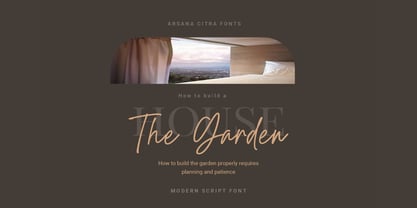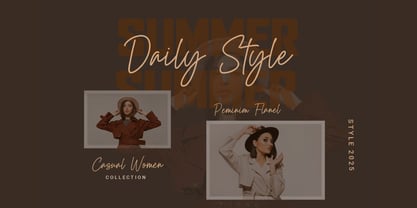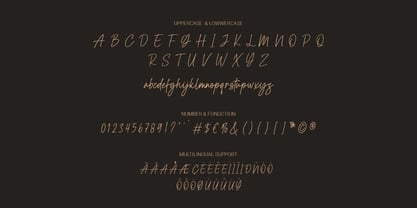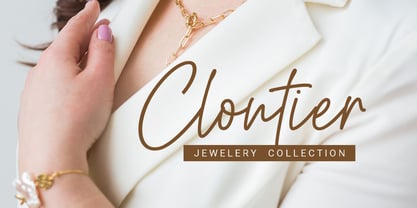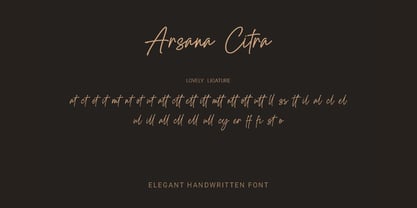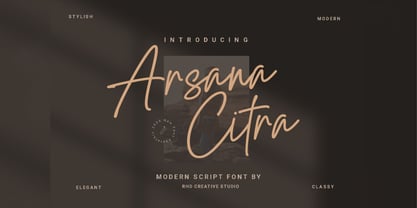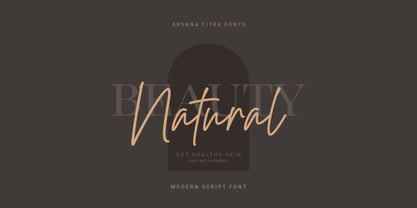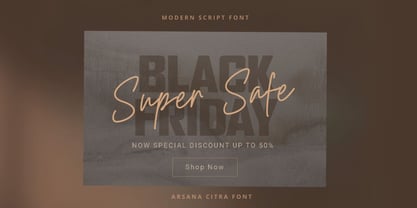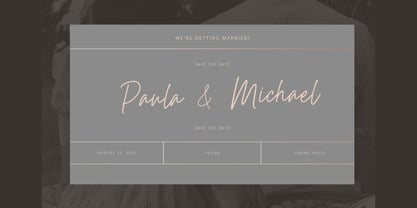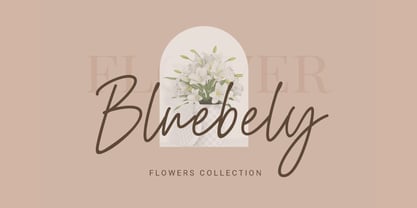
Arsana Citra
by RHD Creative
The Arsana Citra Font Family was designed by and published by RHD Creative. Arsana Citra contains 1 styles. More about this family
Arsana Citra - Modern Script Font with Handmade character. Arsana Citra - Modern Script Font , Modern font to make your design project stand out! Arsana Citra - Modern Script Font a perfectly choice for any creative endeavor, creating, modern, chic, lifestyle design such as logotype, title, cover, branding, invitations, wedding designs, display and magazine, social media posts, advertisements, printed quotes, product packaging, corporate brand, product designs, labels, photography, watermarks, special events and any other project with modern touch.